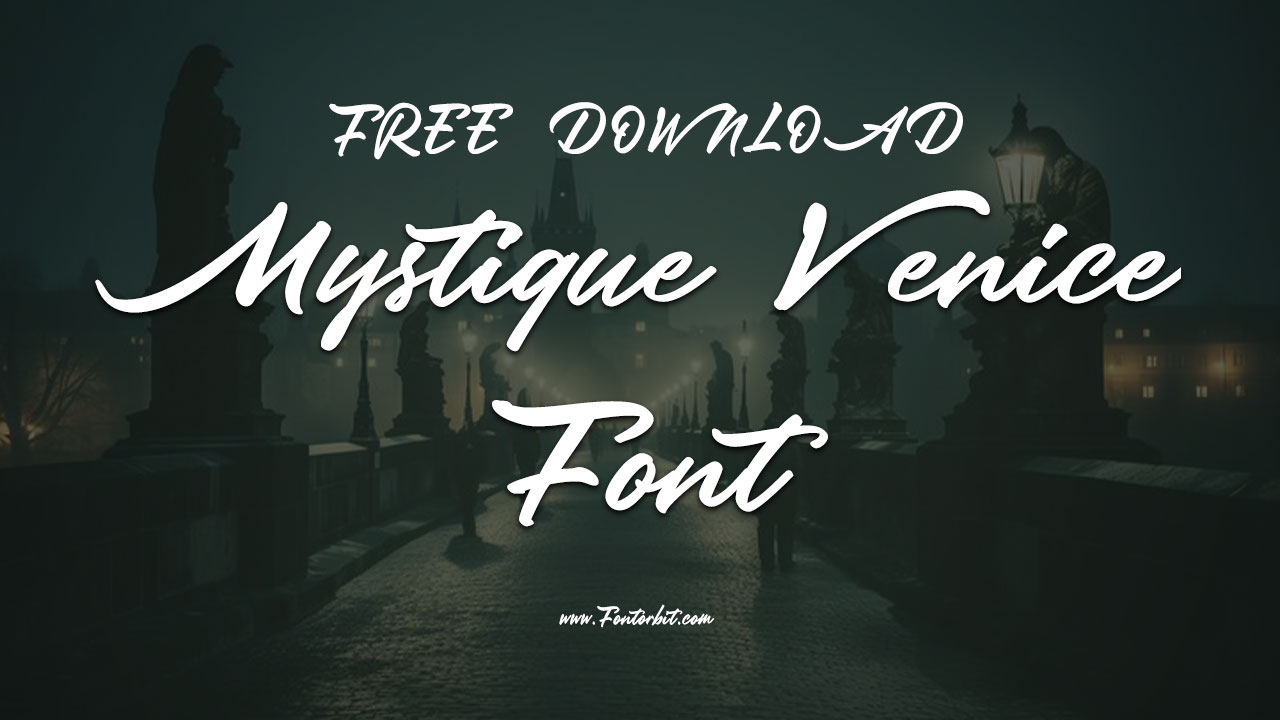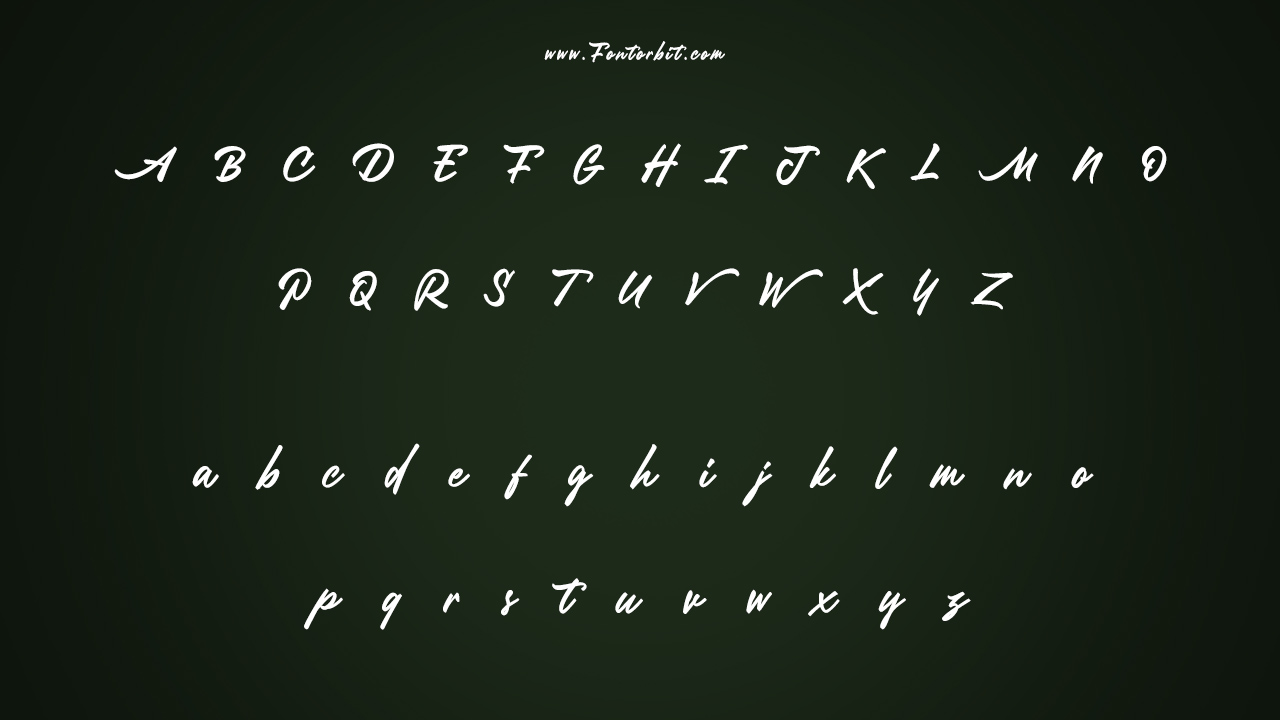
The Mystique Venice Font, designed by Hermansyah and published by Get Studio, is an elegant brush script typeface that adds a touch of sophistication and charm to your projects. With its distinctive handwritten style and fluid character design, this font is perfect for creating personalized and stylish designs.
The Mystique Venice Font Family
a. Mystique Venice Regular
The Mystique Venice Font is ideal for designs that benefit from a personal and elegant touch. Its handwritten charm and fluidity make it perfect for invitations, branding, and any project where you want to infuse a sense of sophistication and personality.
The Mystique Venice Font offers a sophisticated and elegant brush script style, making it a great choice for a wide range of creative projects. Free for personal use, it adds a refined and charming touch to invitations, branding, and more, providing a beautiful handwritten feel to your designs.
3.What Are The Different Weights Available In Mystique Venice Font?
The Mystique Venice Font is available in a single weight.
4.What Are The Features Of Mystique Venice Font?
Features include a fluid brush script style, dynamic ligatures, and alternate characters for a natural and elegant handwritten effect.
5.What Are The Different Languages Supported By Mystique Venice Font?
Supported languages include Central/Eastern Europe, English, and Western Europe.